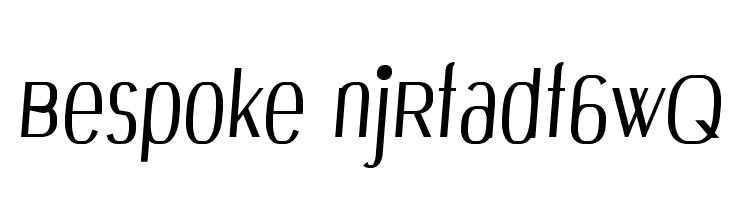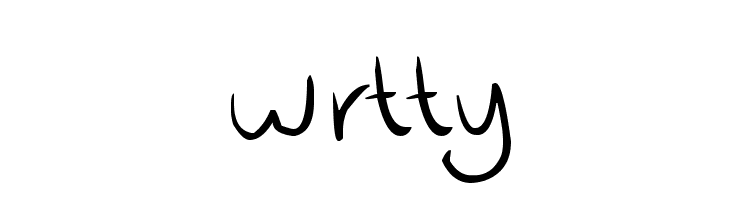
A sleek, modern font with clean lines and slightly condensed letterforms.
A bold, jagged, and condensed italic font with a gritty, distressed texture.
A modern, monospaced font with geometric shapes and rounded edges.
A bold, geometric font with a futuristic, industrial style.
A bold, decorative font with a unique dotted pattern and strong geometric structure.
A bold, geometric font with a futuristic and industrial aesthetic.
A playful and whimsical font with decorative elements and bold strokes.
A modern, high-contrast font with elegant, slender characters.
An elegant, swashed font with playful curves and delicate strokes.